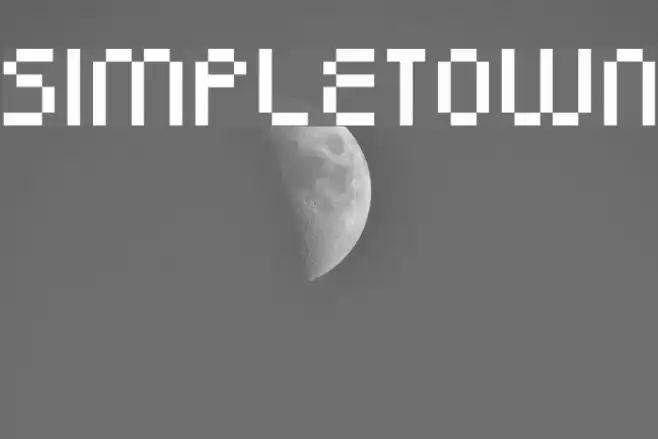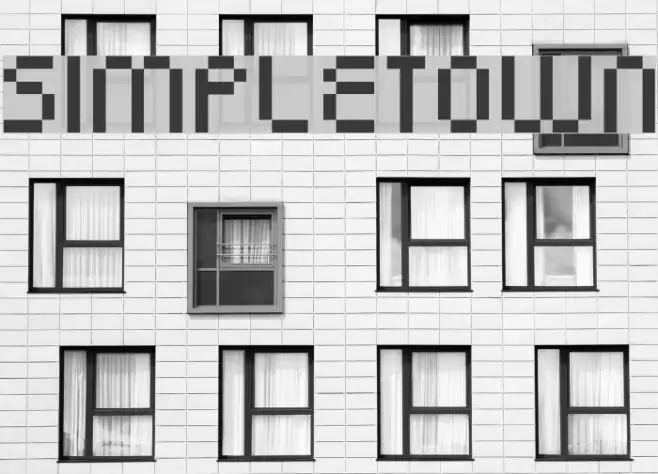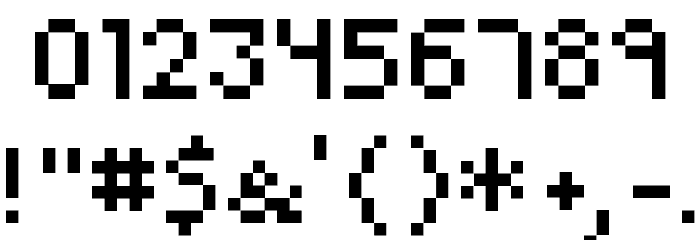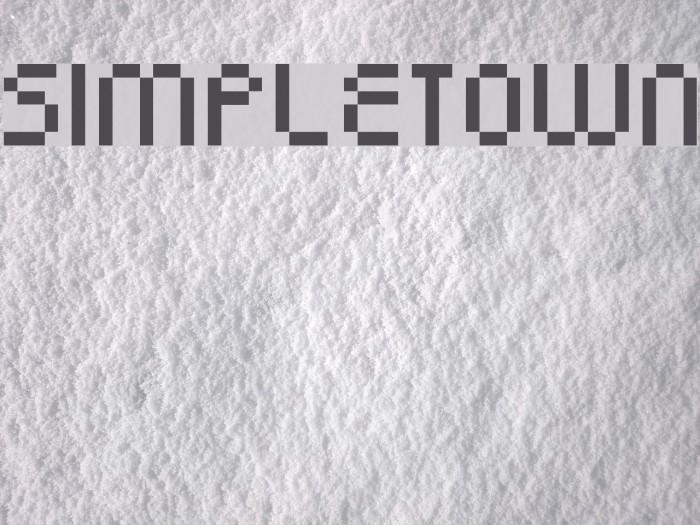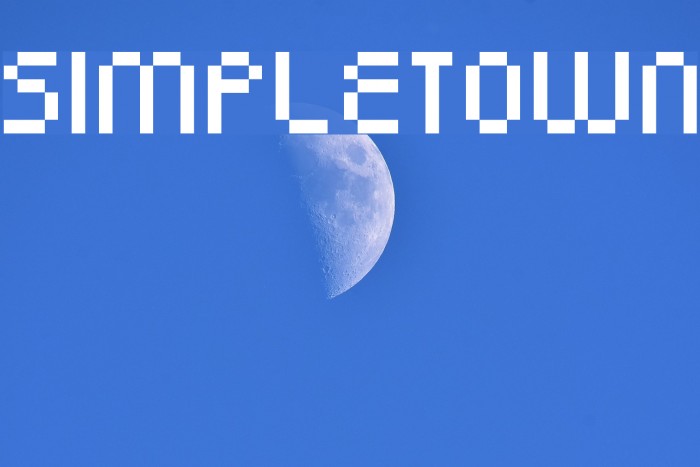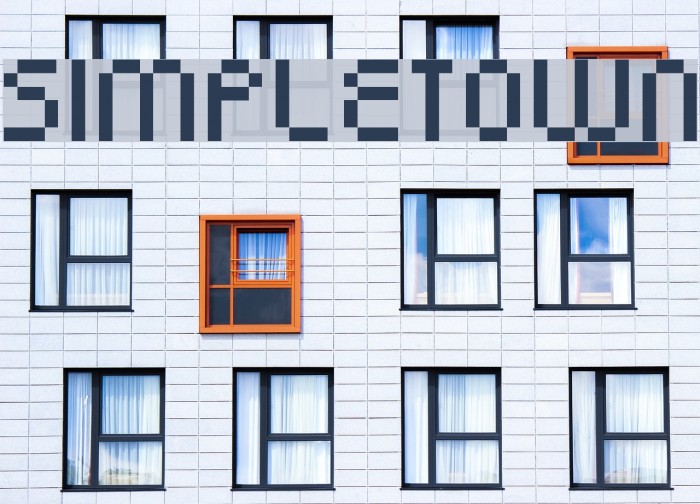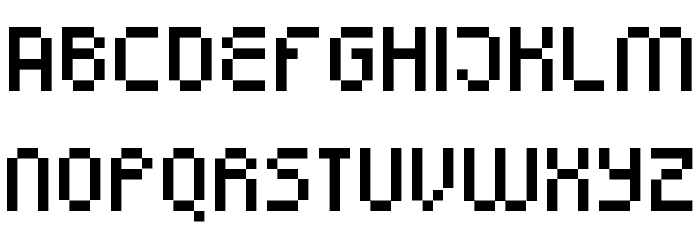
Simpletown Font
Simpletown Description
This font features a pixelated, blocky design reminiscent of early digital displays and retro video games. Each character is constructed with a uniform grid-like structure, giving it a distinctly digital and geometric appearance. The uppercase and lowercase letters maintain a consistent height and width, emphasizing the monospaced nature of the font. The numerals and special characters follow the same pixelated style, ensuring a cohesive look across all glyphs. The overall aesthetic is bold and striking, making it ideal for projects that require a vintage or tech-inspired theme.
A pixelated, monospaced font with a retro digital style from Uncategorized fonts.
- Proposed Projects: Ideal for retro video game designs, tech-themed posters, digital art projects, and any creative work that seeks a vintage digital aesthetic.
- Overall Style: Vintage
- Use Case: Logos, Headlines, Digital Art